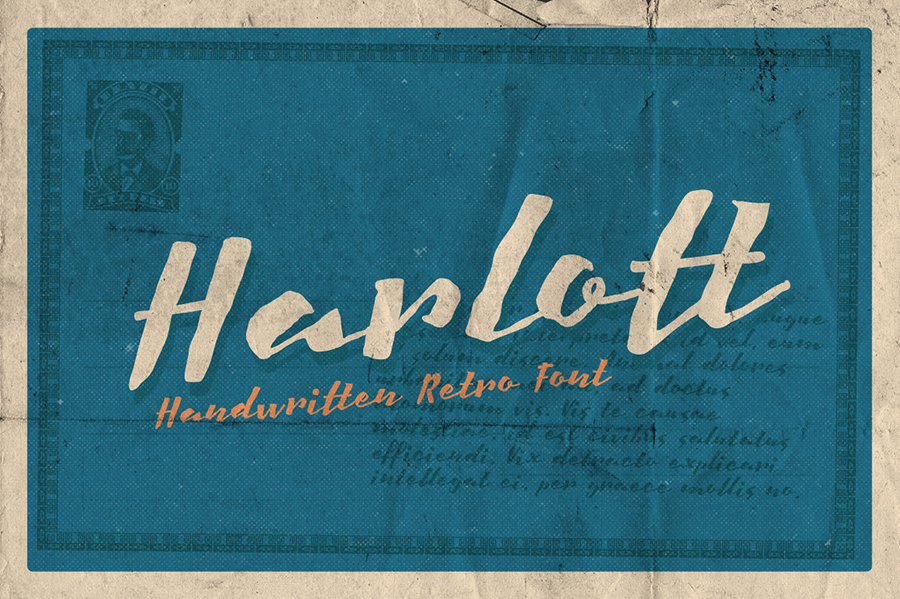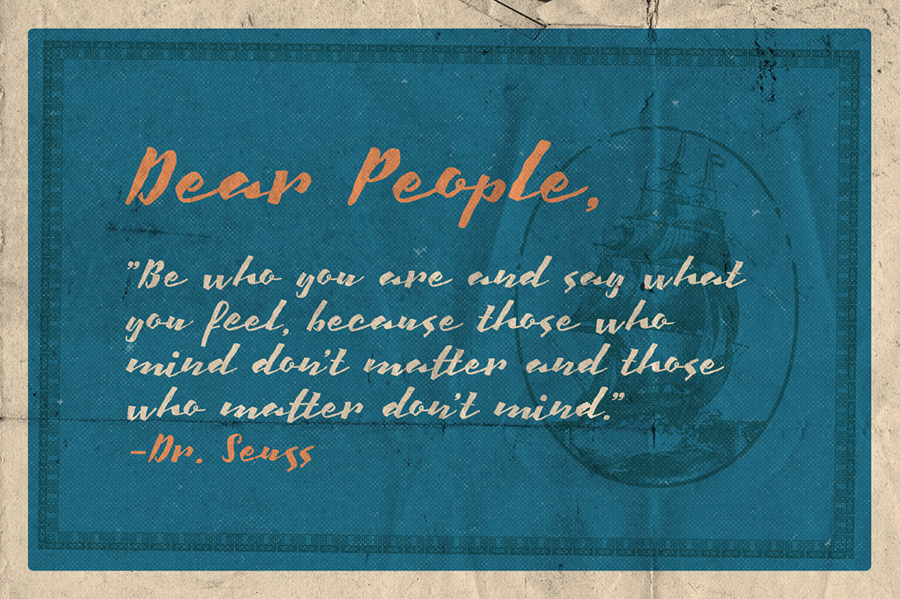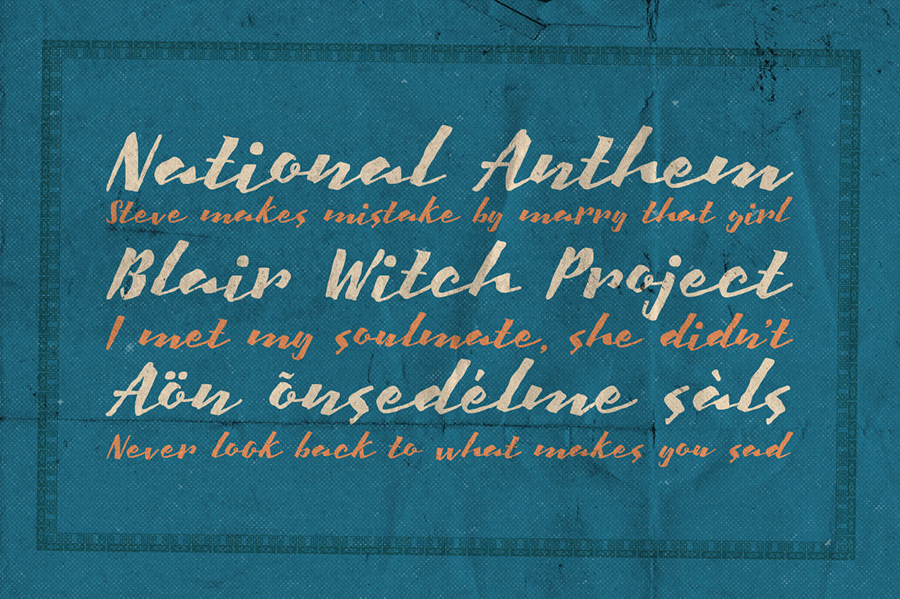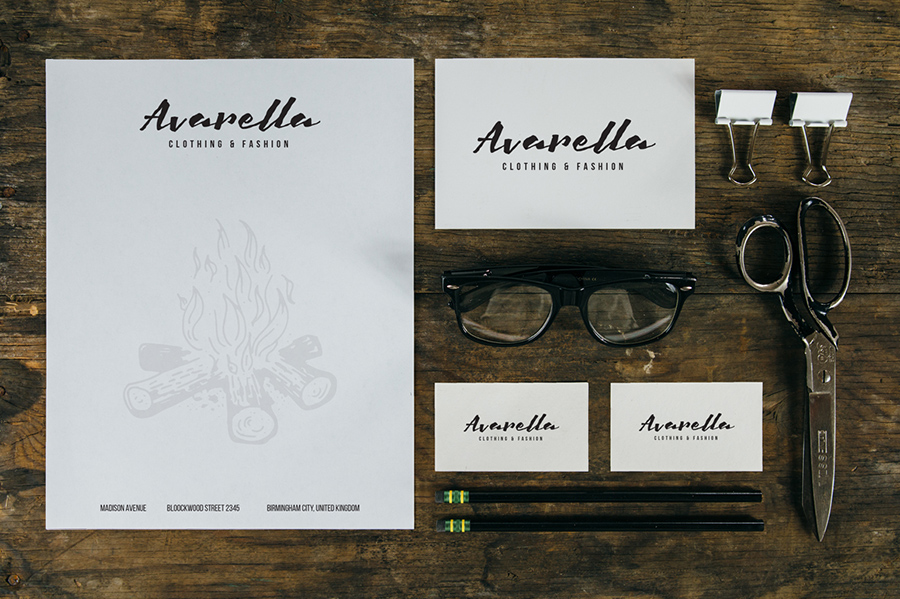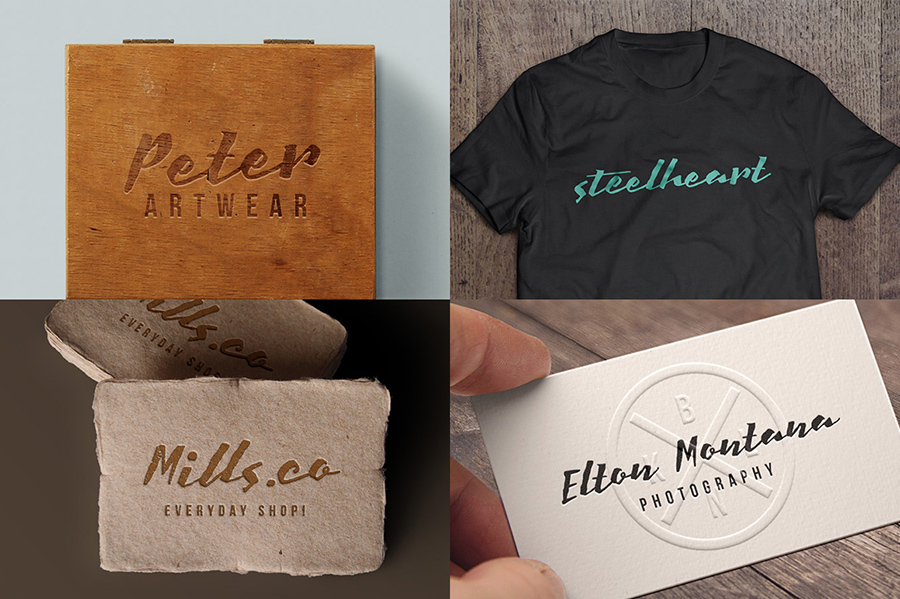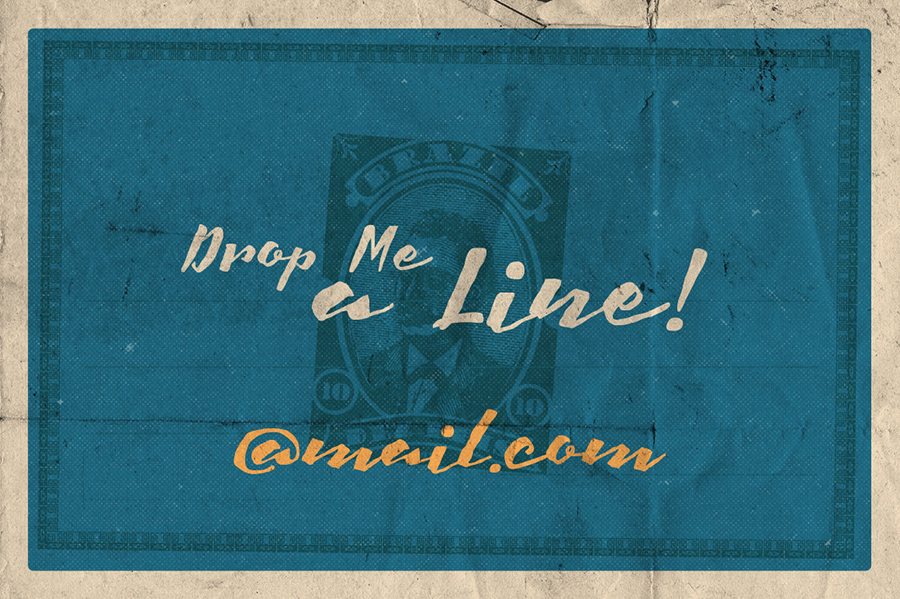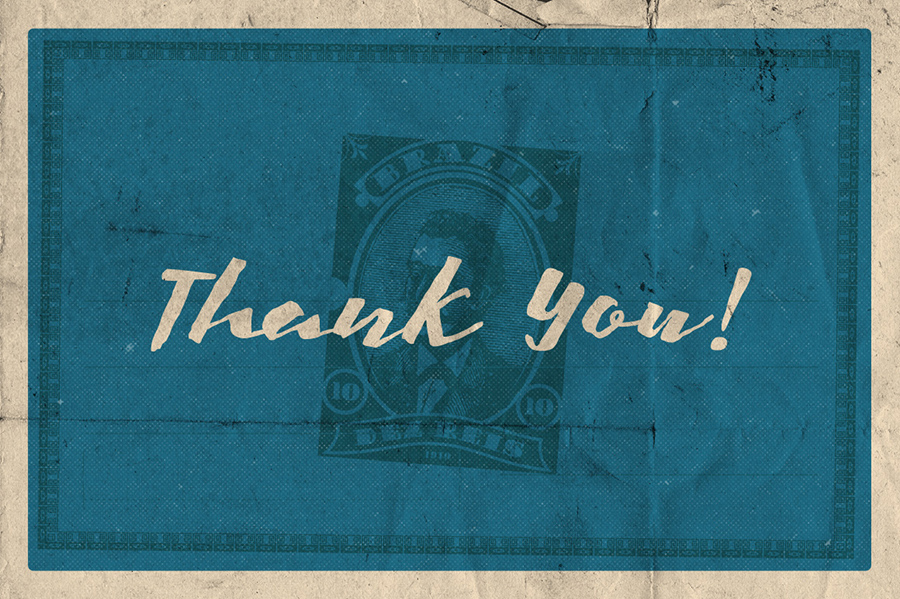
Harlott Font
Inspired by classic brush lettering, Harlott Font gives an impression of straight brush calligraphy and natural hand lettering. This free font can be used as a logo, part of branding, headline, any display purposes, t-shirt design, etc.